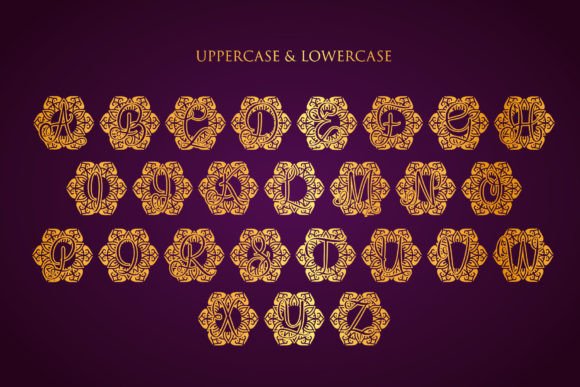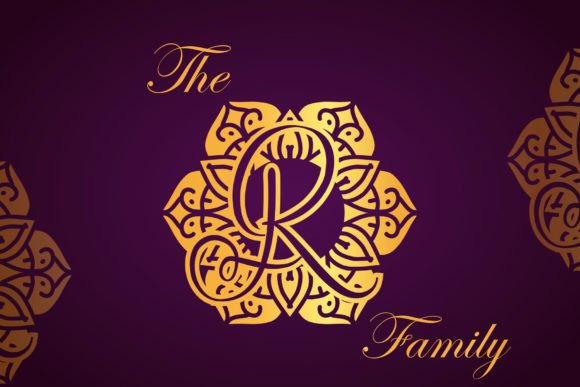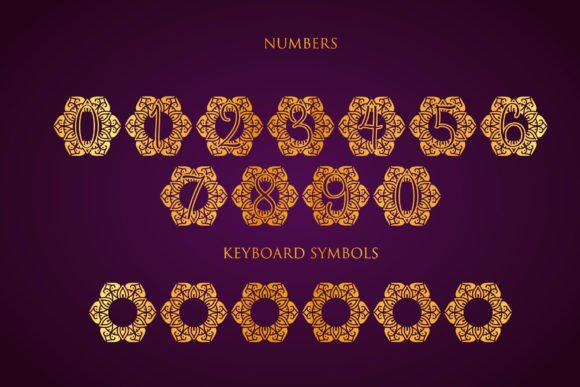
Unlock the Magic of Mandala-Inspired Typography
Have you ever found yourself lost in a sea of creativity, searching for the perfect font to elevate your next project? It’s a feeling we’ve all experienced at some point – the thrill of brainstorming ideas, only to hit a roadblock when it comes to finding the perfect visual representation. But what if I told you there’s a font that could transport you to a world of elegance and sophistication, where intricate patterns and delicate details reign supreme?
Meet the Blossom Mandala Monogram Font, a stunning decorative font that draws inspiration from the timeless beauty of mandala art. This exquisite font is not just a pretty face – it’s a versatile tool that can be used to add a touch of whimsy to your craft, or serve as the perfect foundation for your logo or branding materials.
For designers, the Blossom Mandala Monogram Font offers a unique opportunity to add a touch of personality to their work, setting them apart from the crowd and elevating their projects to new heights. Whether you’re a seasoned pro or just starting out, this font is sure to inspire your creativity and help you bring your vision to life.
Blossom Mandala Monogram Font Key Features
- Unique Monogram Font Design: The font features intricate, hand-drawn mandala designs within the monogram, creating a beautiful and elegant look.
- Script and Language Support: Supports a wide range of languages, including Latin, Greek, and Cyrillic scripts, making it versatile for various design projects.
- Unique Character Set: Includes a range of special characters, including punctuation, symbols, and accents, to enhance the overall design.
Blossom Mandala Monogram Font Review
I recently had the chance to work with the Blossom Mandala Monogram Font, and I must say it’s a unique and lovely addition to any design project. Here’s what I liked and didn’t like about it.
- The intricate details of the font make it perfect for creating elegant and whimsical designs.
- The script-like quality gives it a beautiful, handwritten feel that’s perfect for wedding invitations, stationery, and other special occasions.
- The font can be quite dense, which may make it difficult to read in smaller sizes or in certain color combinations.
- It’s not ideal for body text or large blocks of text, as it can become overwhelming and hard to follow.
- The font is best used in conjunction with other design elements, such as graphics or textures, to create visual interest.
Overall, I’m impressed with the Blossom Mandala Monogram Font. While it may have some limitations, its unique charm and versatility make it a great addition to any design project. I’d recommend it for designers looking to add a touch of elegance and whimsy to their work.
The Blossom Mandala Monogram Font is perfect for creating custom wedding invitations, baby shower invitations, and other special occasion invitations. It’s also great for creating custom logos and branding materials for small businesses and entrepreneurs.